The Modern & Classic Font Bundle
tHere in this post, you can Free Download The Modern & Classic Font Bundle compress files through the below link. The bundle contains 23 fonts in 15 familiy. This is a collection of some of my fonts, This bundle includes a variety of modern & classic, serif and san serif fonts, serif ligatures, duo fonts. etc. You Can Also Download The Retro & Vintage Font Bundle.
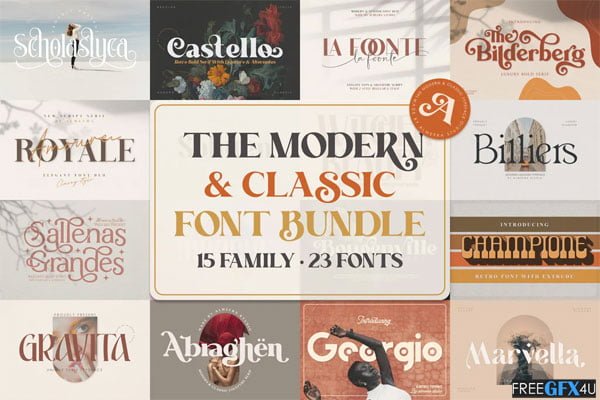
The Modern & Classic Font
Before And After Images of The Modern & Classic Font Bundle:
Below I have shared with you (Before And After) images after applying The Modern & Classic Font. you can see those images to get a better idea before downloading. You Can Also Download 140 Decorative Font Bundle.
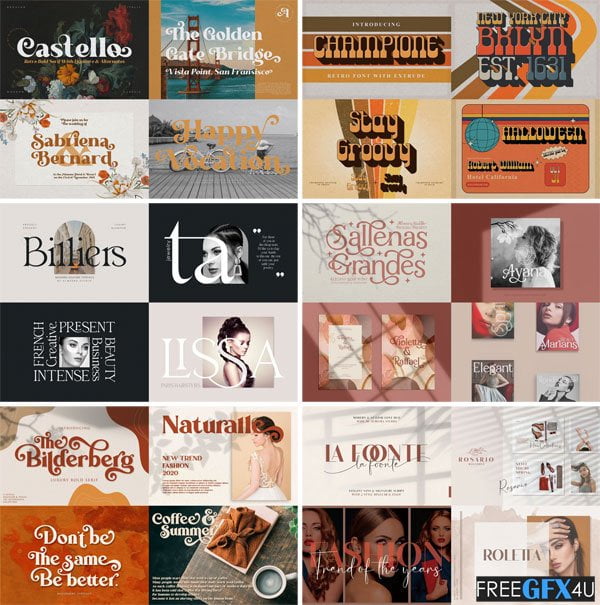
The Modern & Classic Font